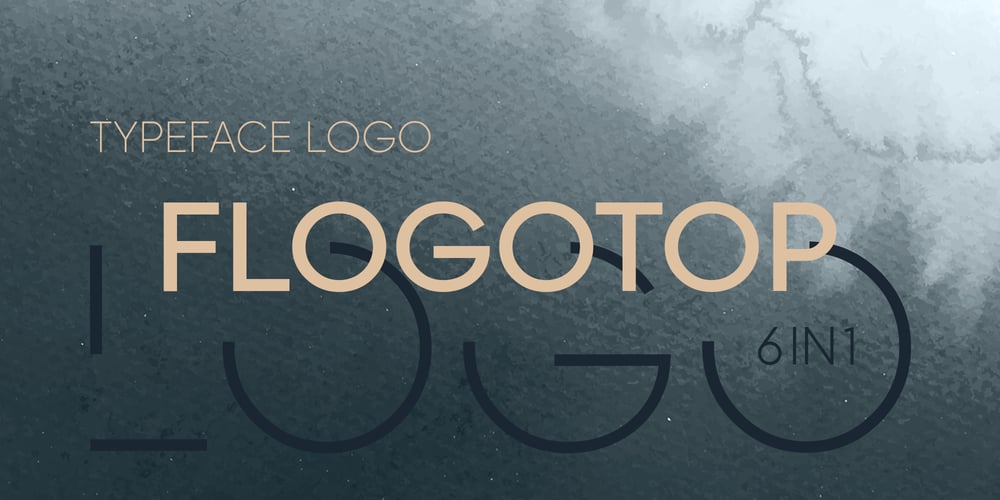
Flogotop
Flogotop font
Flogotop Font Family was designed by Stanislav Hatznik and published by Smartfont. Flogotop contains 8 styles and family package options. Flogotop is a carefully designed font for logos. One font includes six full-fledged font options and additional letter variations to give your logo or headline a unique touch.In an effort to make font use as easy and simple as possible, alternates have been added to change letters in Photoshop or Illustrator or any app that fully supports OpenType features, and stylistic sets, allowing users to quickly select the entire range of text and apply this type of replacement.Flogotop works great in branding, logos, headlines, posters. Different weights and combinations give you complete freedom to implement your ideas.